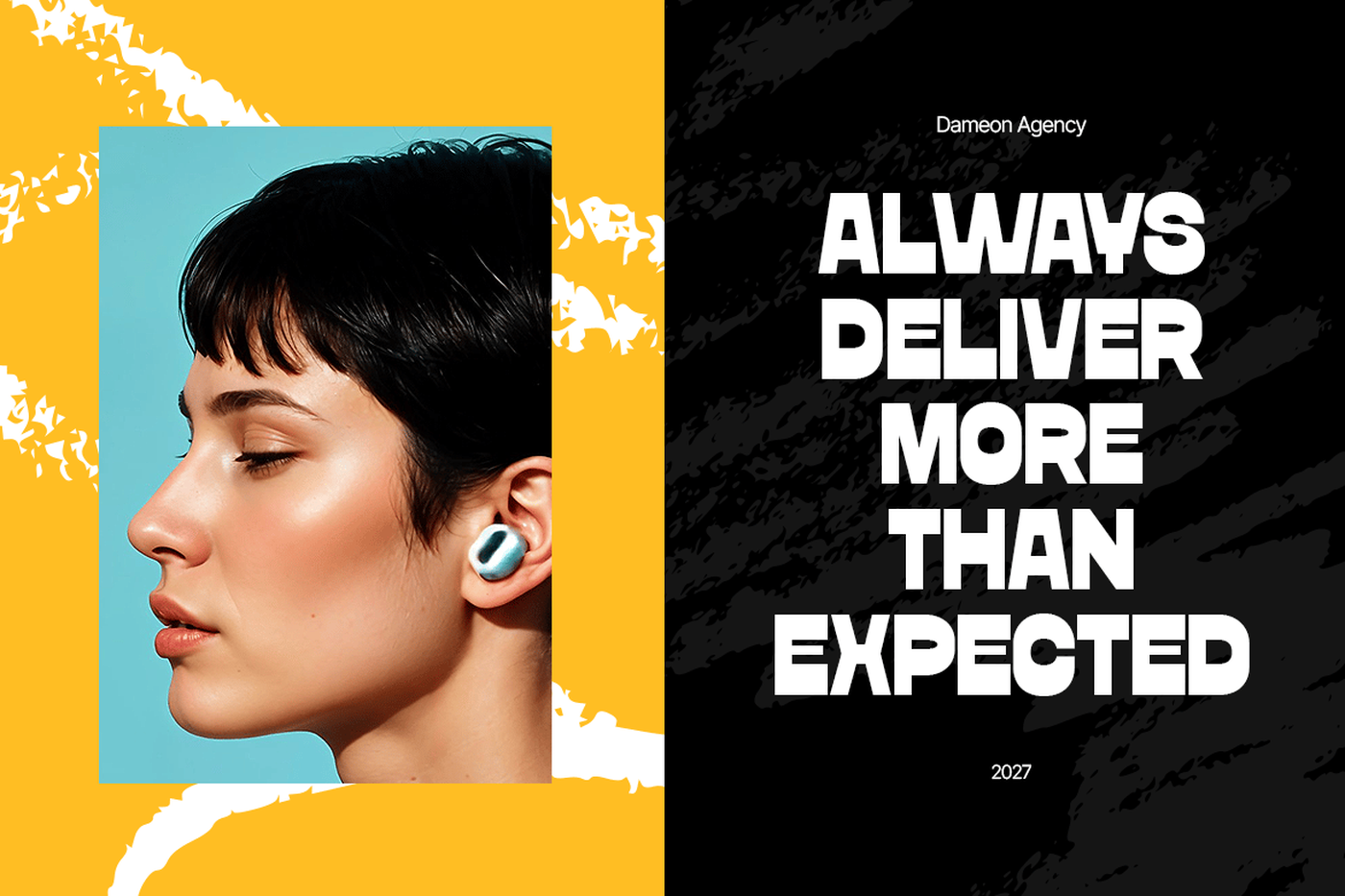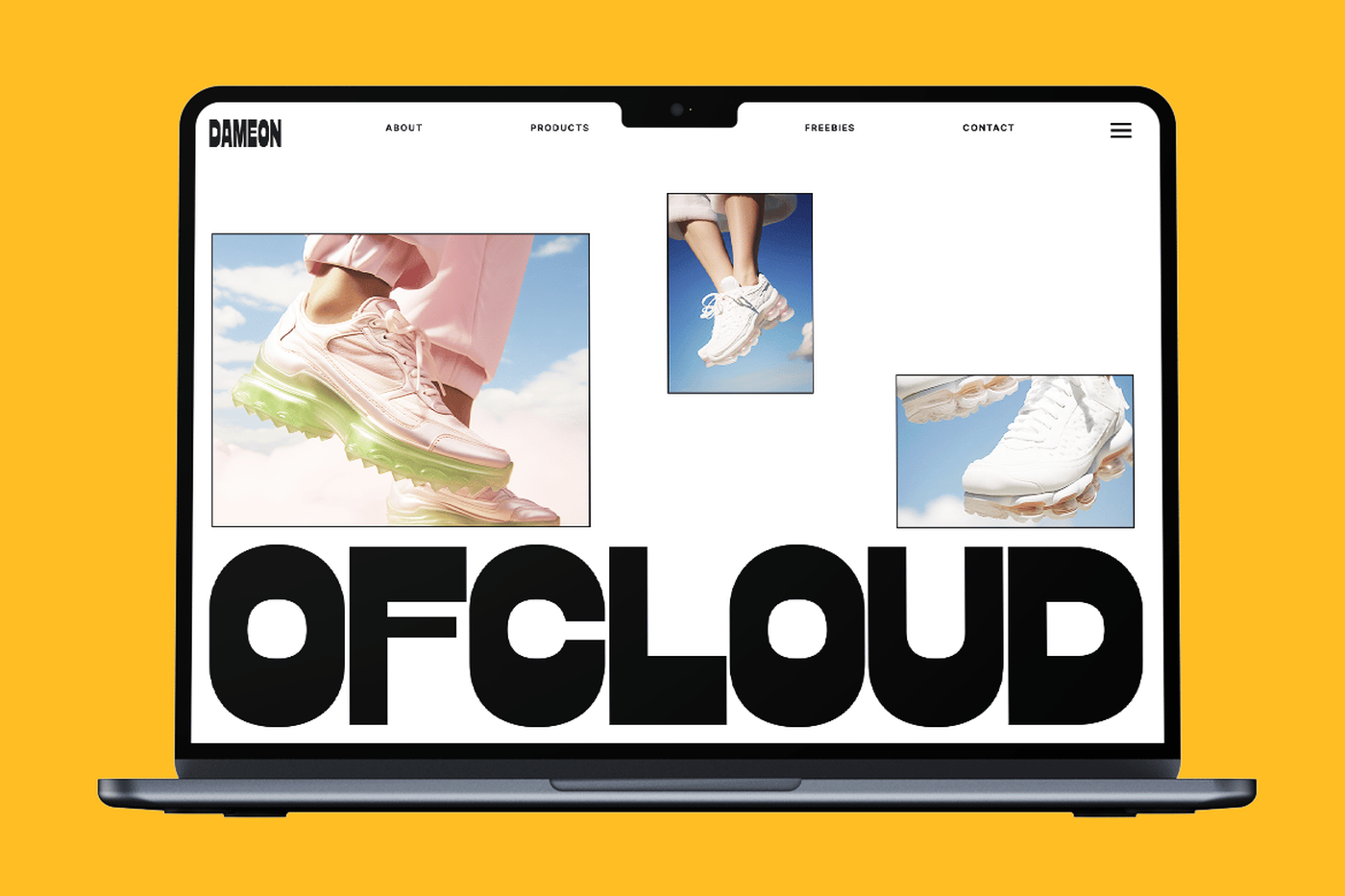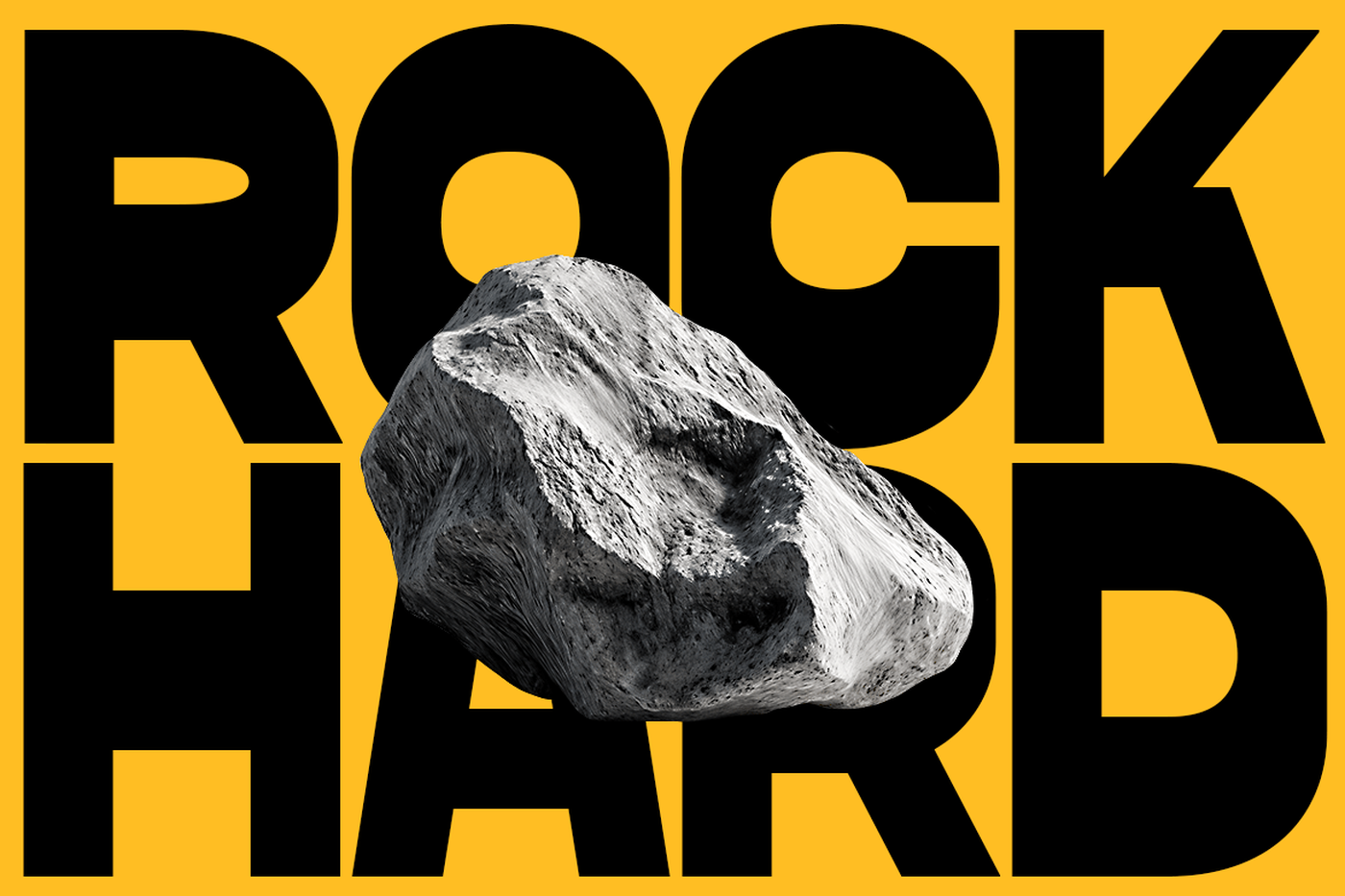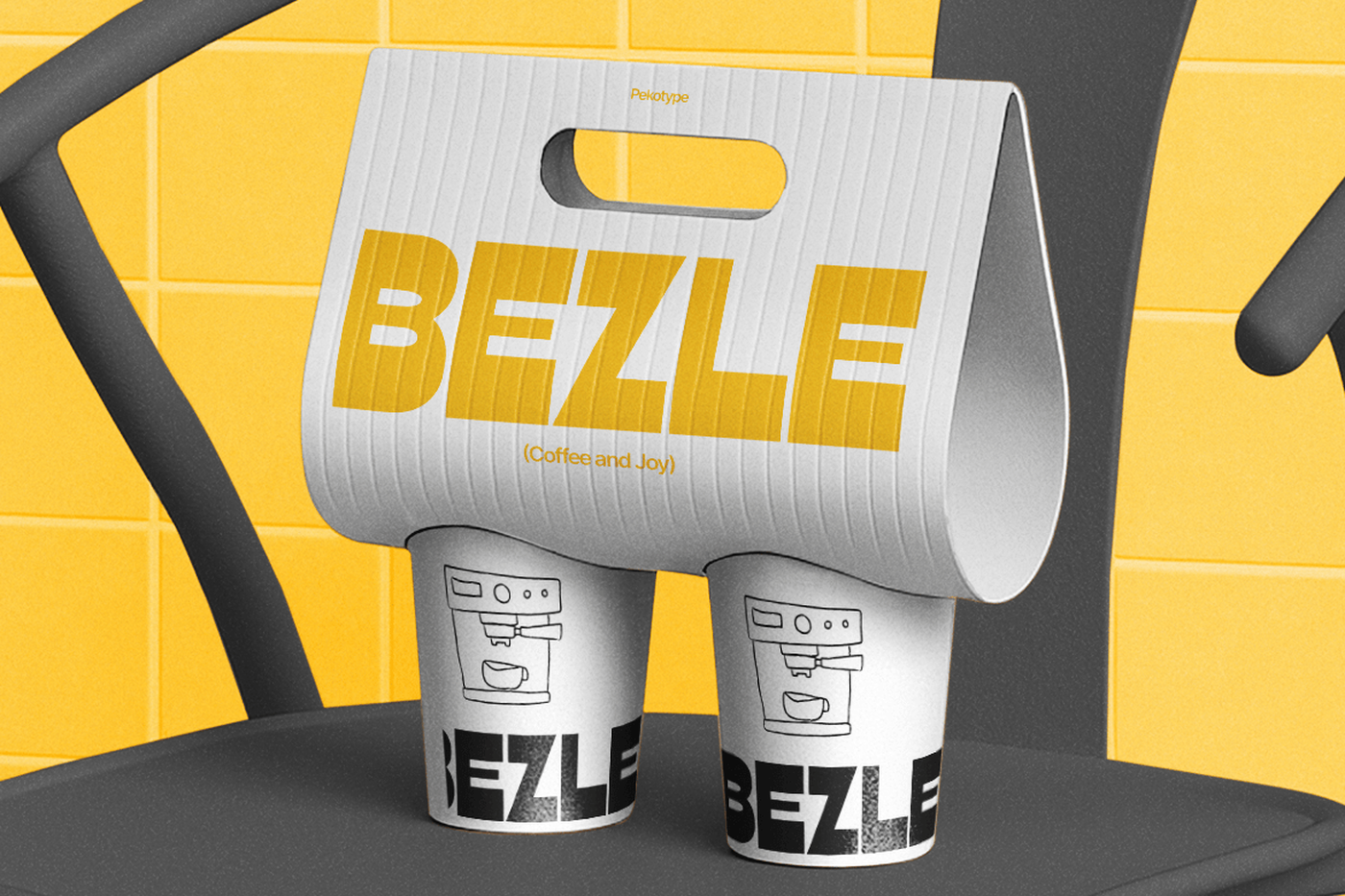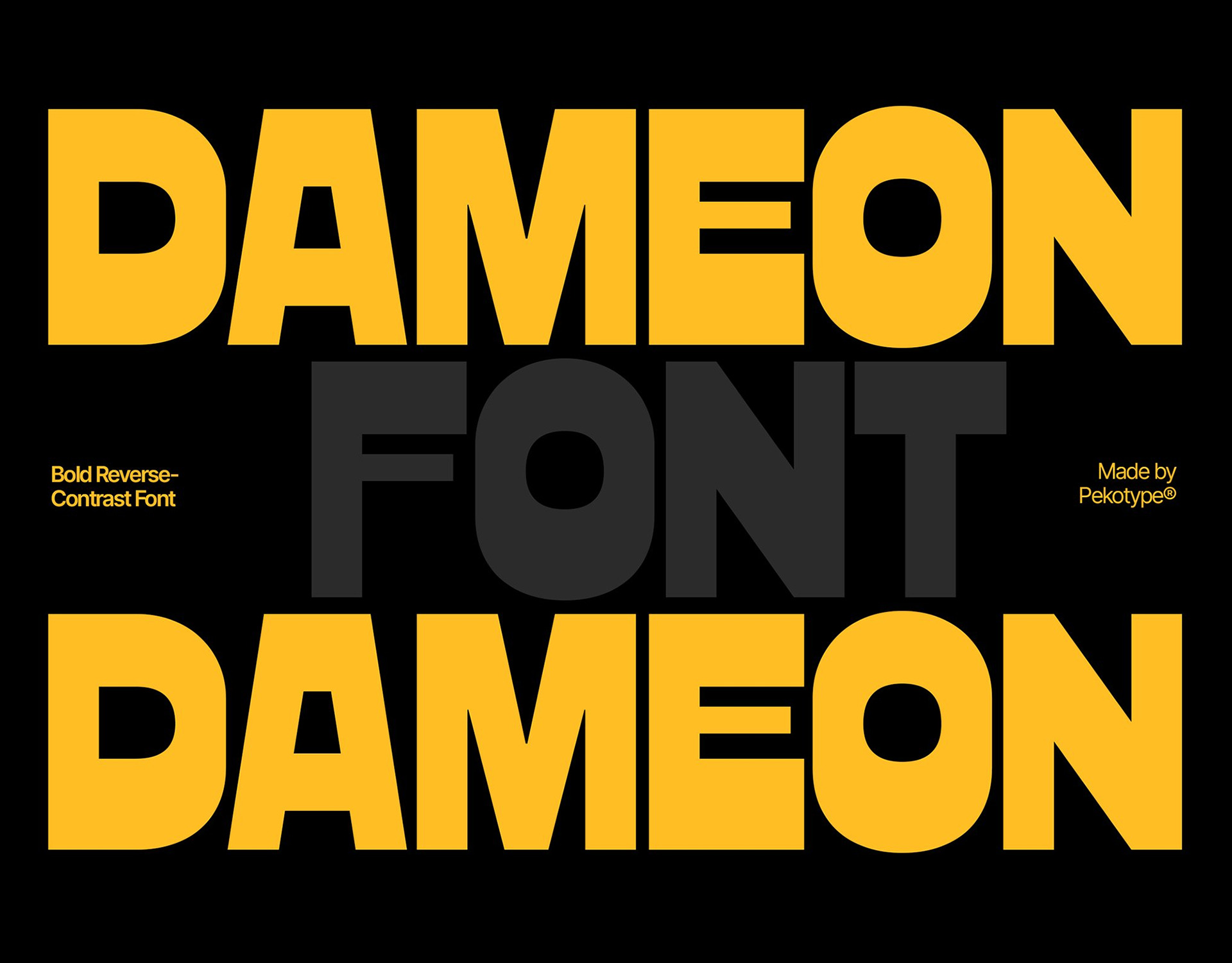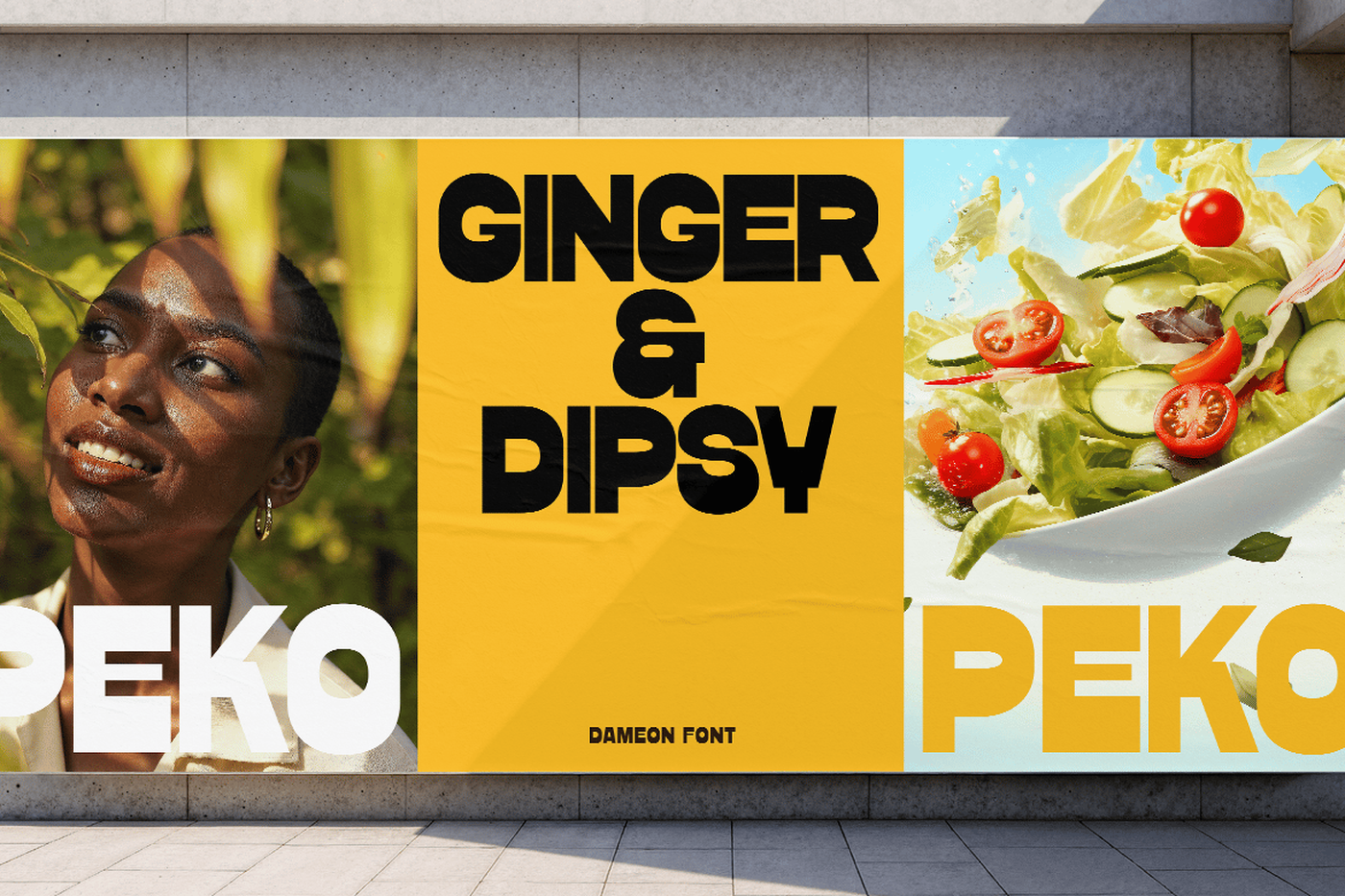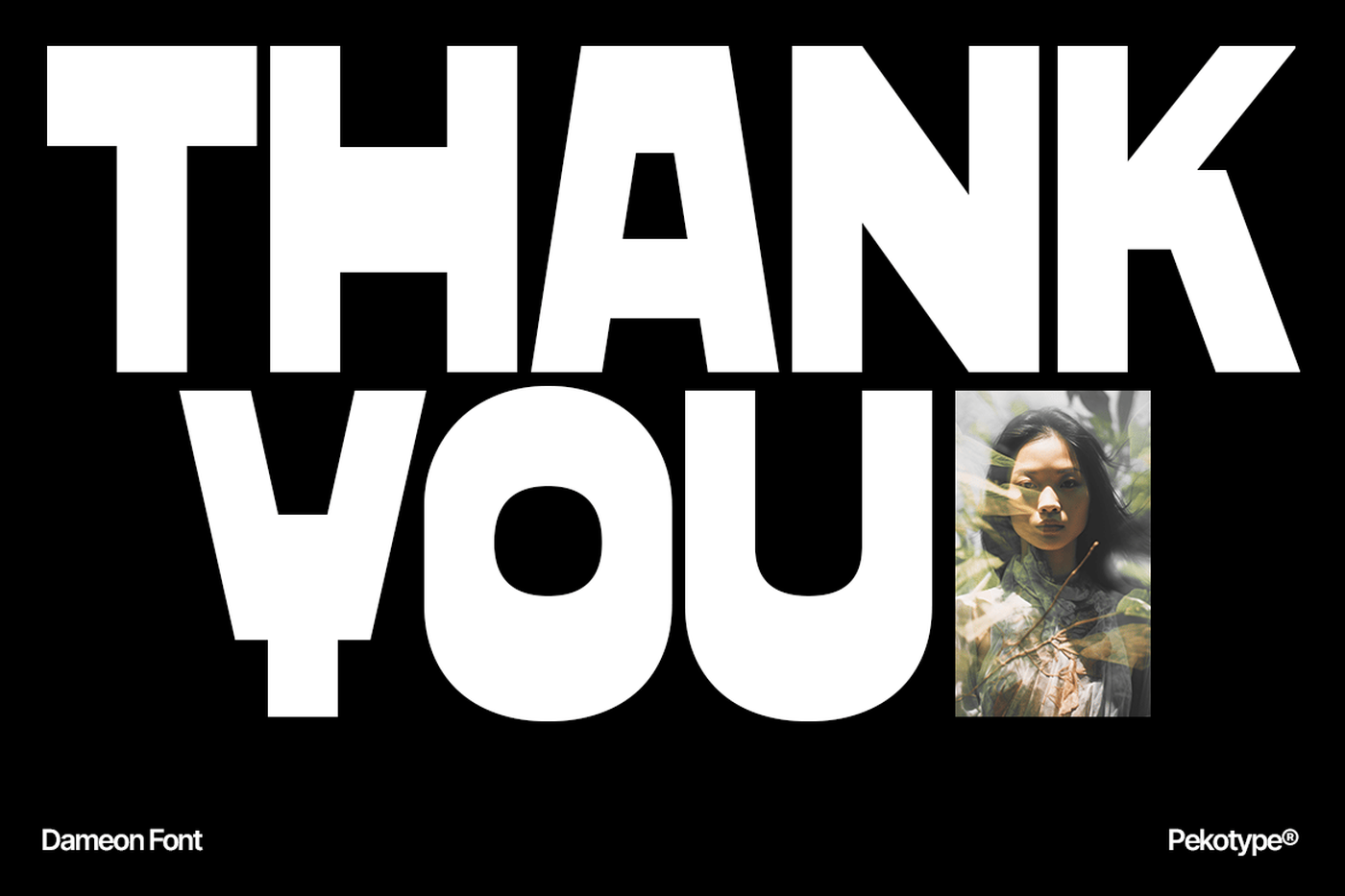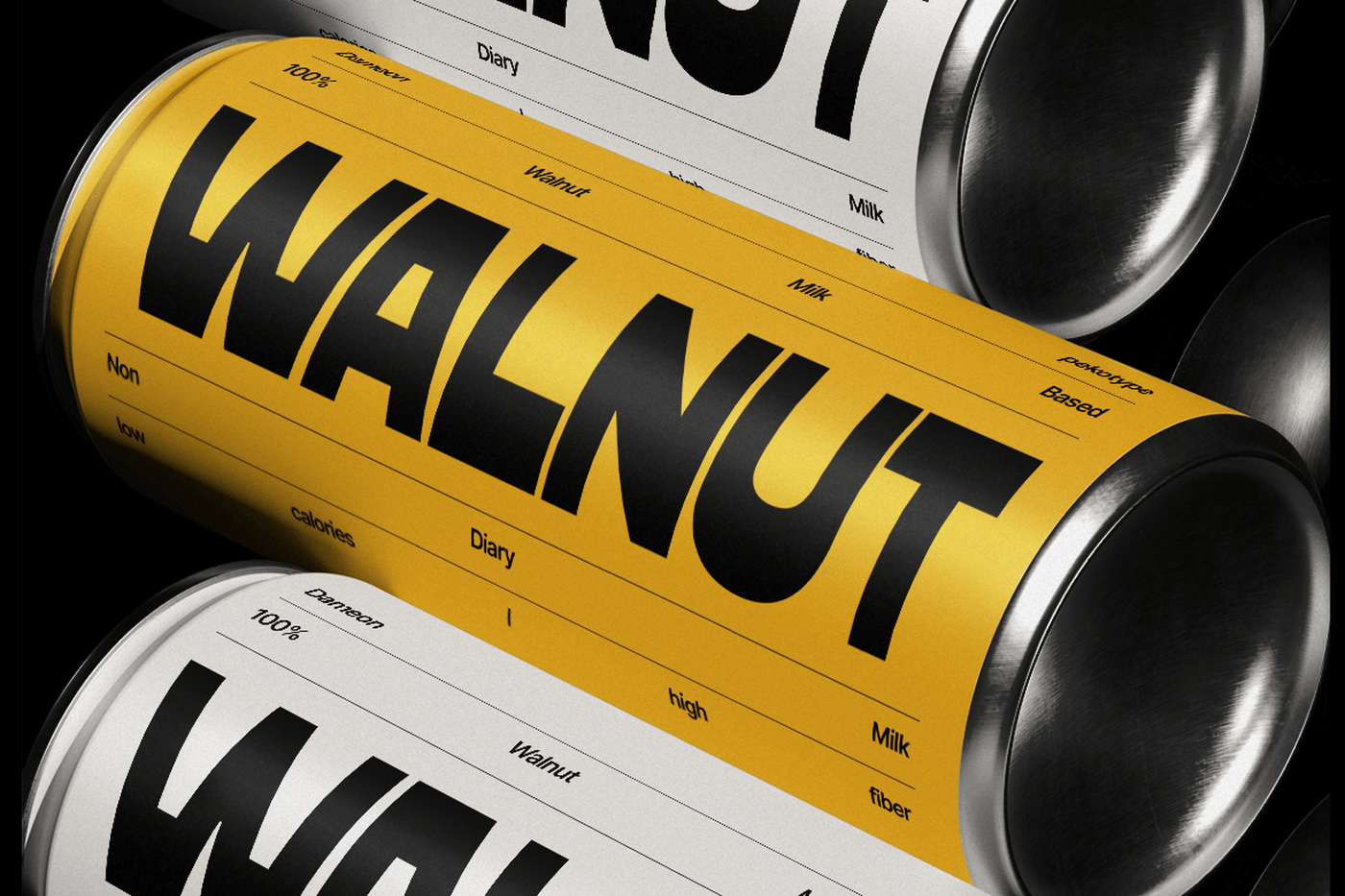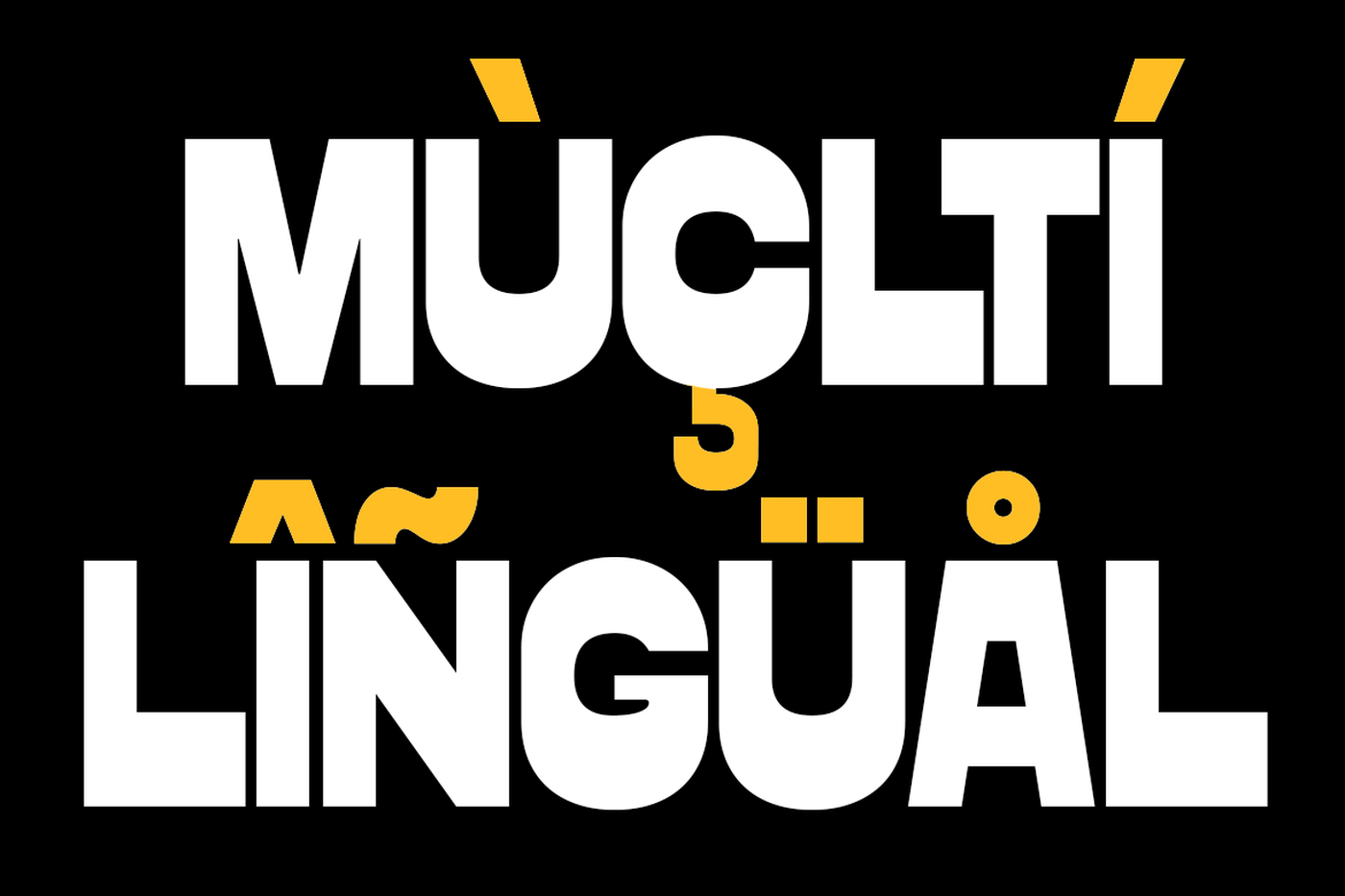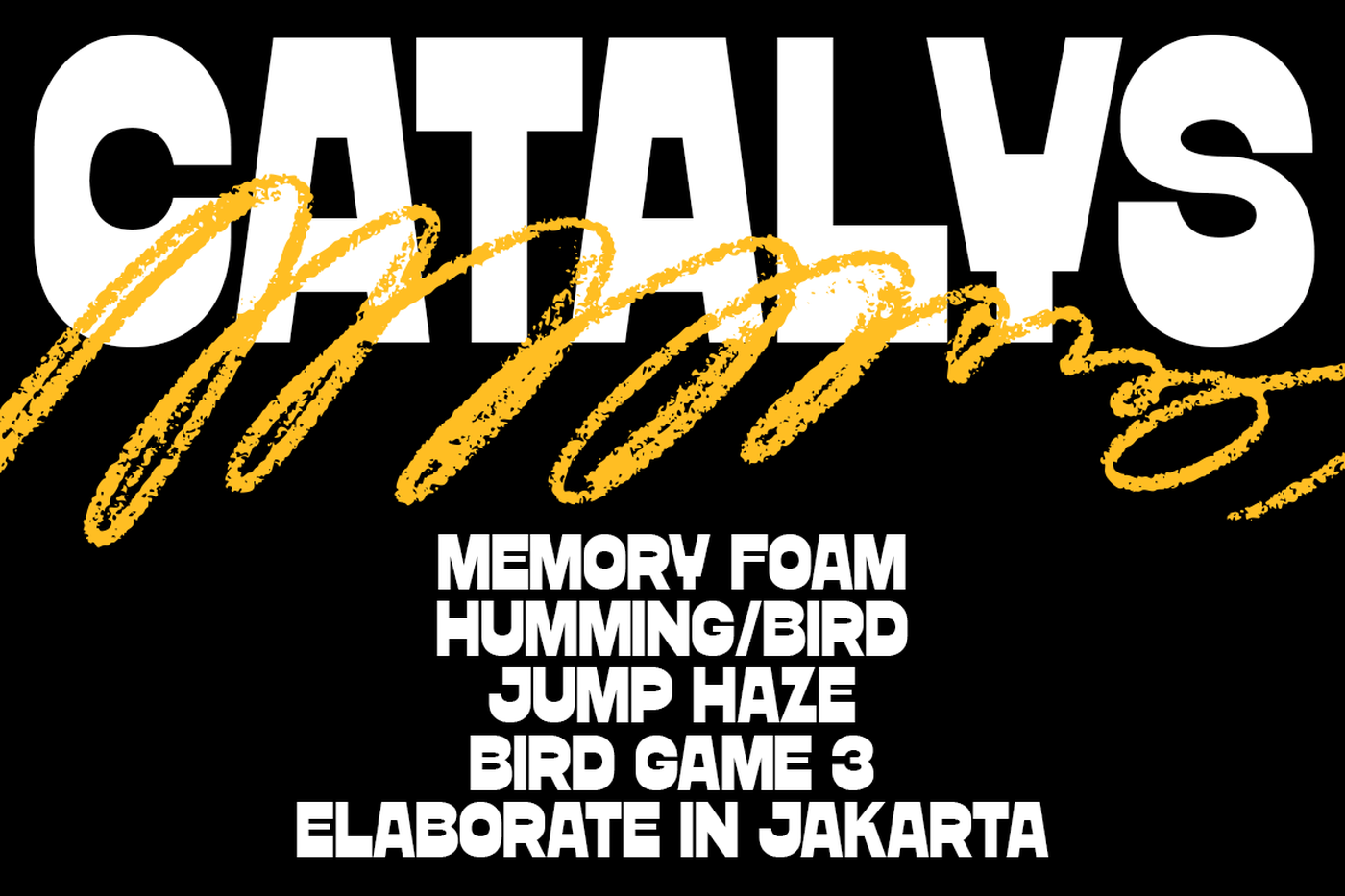
Dameon - Bold Reverse Contrast Font
DAMEON is a bold and powerful display condensed typeface built for brands that demand attention. Designed with a striking reverse contrast concept, DAMEON delivers a modern, energetic visual character that stands out in any layout. Its all-caps structure, heavy weight, and tight proportions make it perfect for branding, logos, editorial titles, advertising, packaging, sports visuals, and social media campaigns. Crafted for maximum impact, DAMEON offers a clean yet expressive personality—ideal for businesses and creatives who want their message to be sharp, loud, and unforgettable. With full multilingual support, strong legibility, and versatile styling, DAMEON becomes your go-to typeface for high-performance promotional design.
Designer: Peko Type
Font: Dameon